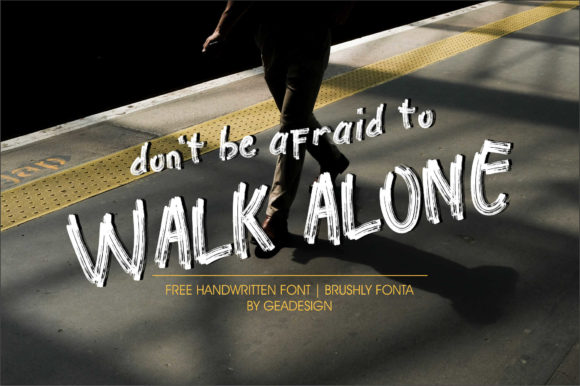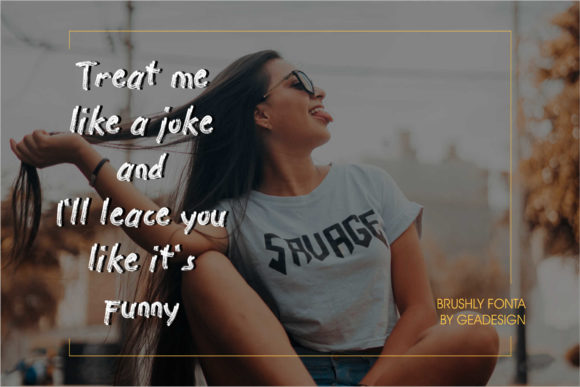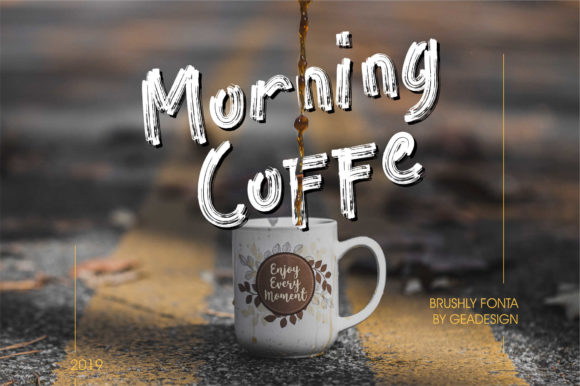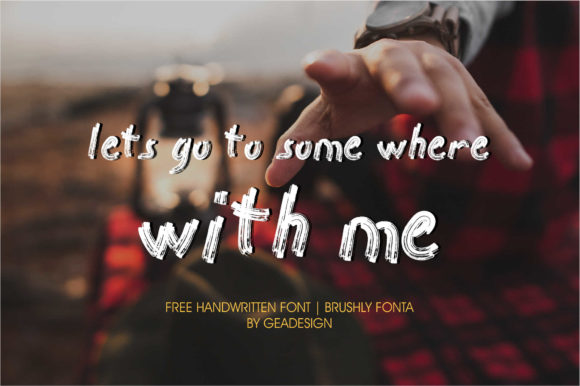
Brushly Fonta Font
About Brushly Fonta Font
Brushly Fonta is a modern handwritten font with a bold urban twist. It’s perfect for any design project that requires that unique feel.